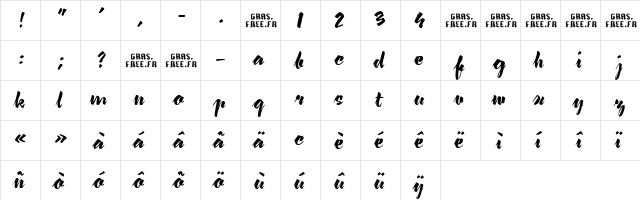
lavomatic script
| Style | script |
Design Context for lavomatic Typeface
lavomatic brings a calligraphic fluidity to the page — its connecting strokes and expressive curves give it an unmistakably human quality.